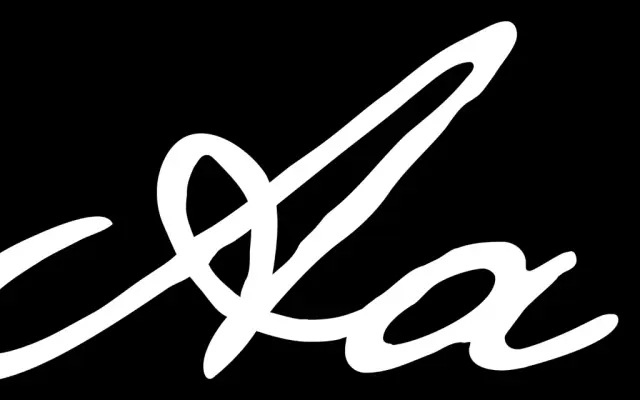
Beaurencourt FY
Black Foundry · Gia Tran, Jérémie Hornus
A connected script drawn from 19th-century handwriting, available in two weights with ink-spread effects for both small text and display use.
Designed by Gia Tran and Jérémie Hornus, it reproduces the rhythm and texture of period handwriting through connected forms, loops and ink-spread detailing. Two weights, Light and Regular, handle both small-size legibility and large display settings where the ink-on-paper quality comes through most clearly. Oldstyle figures, ligatures, stylistic alternates and an extensive fraction set make it well equipped for packaging and editorial projects where typographic detail matters.
A connected cursive script rooted in 19th-century handwriting conventions, with joined letterforms, loops and ink-spread effects placing it firmly in the historical script category.